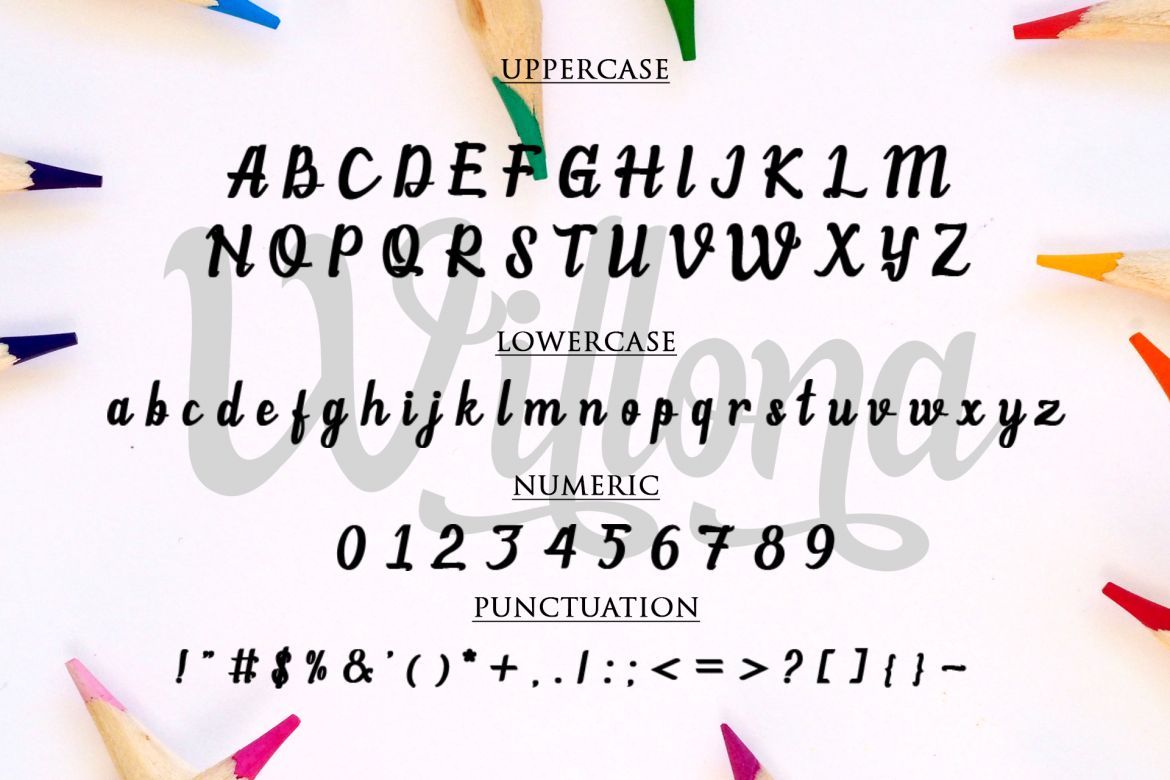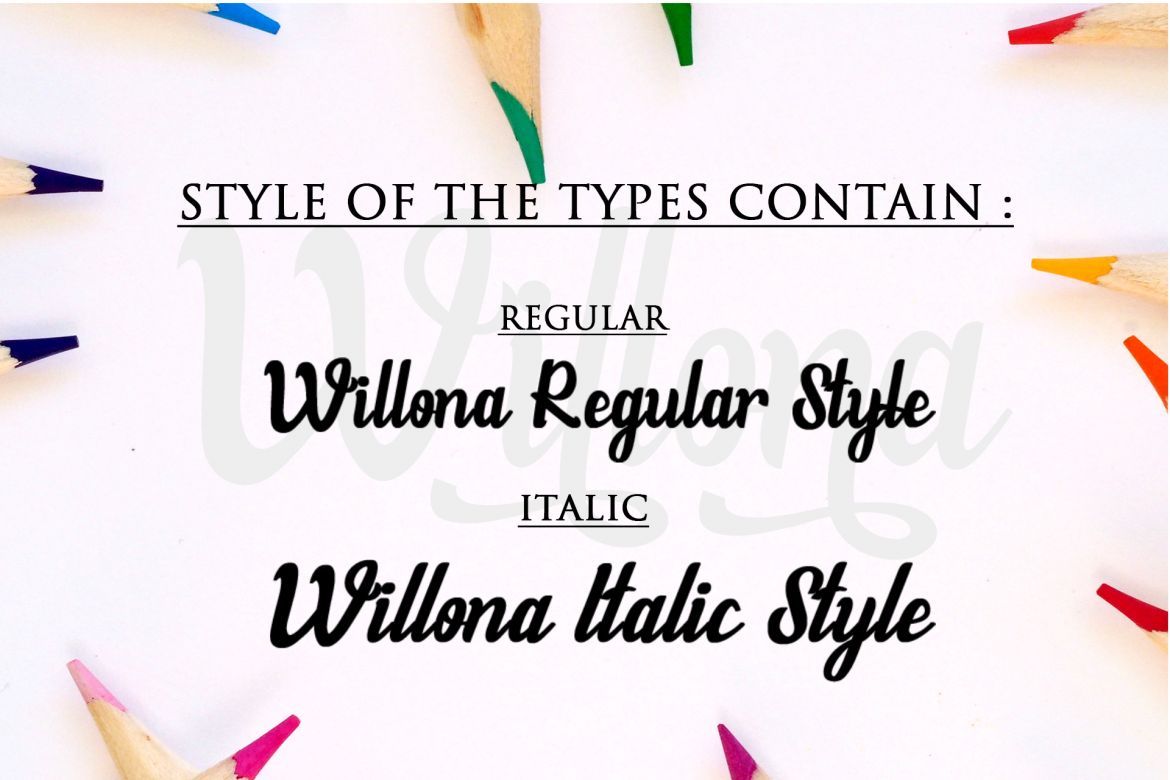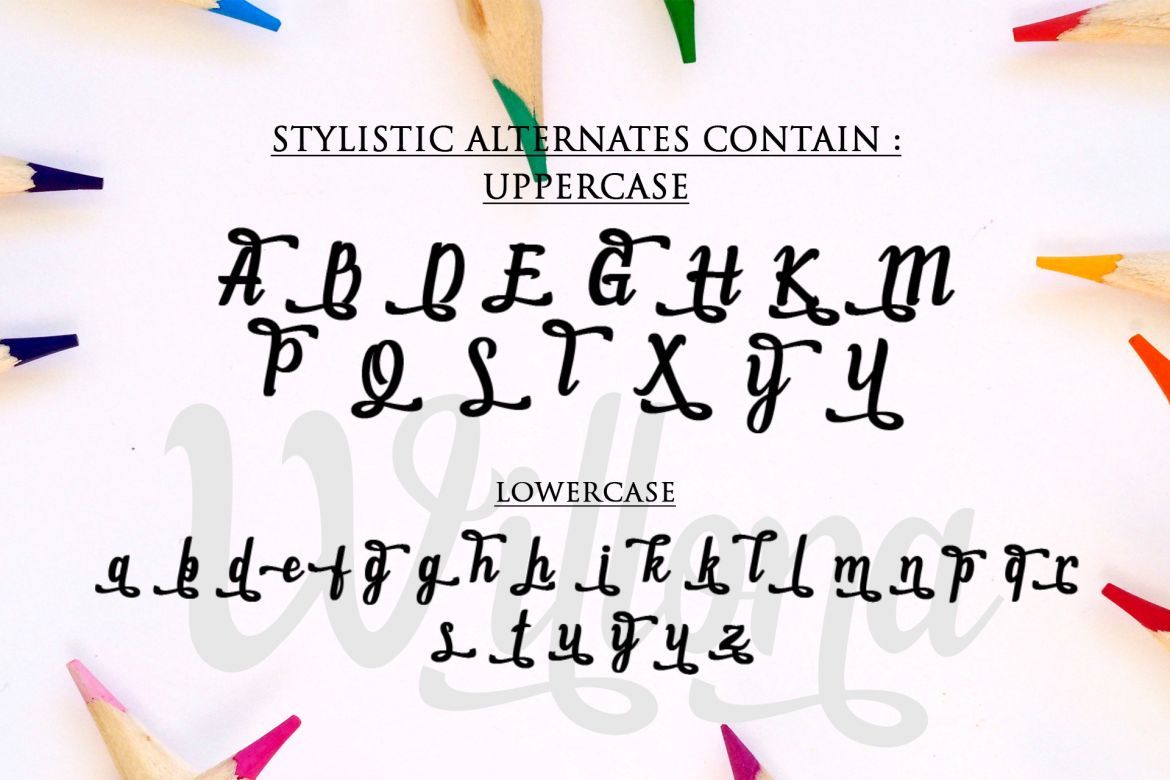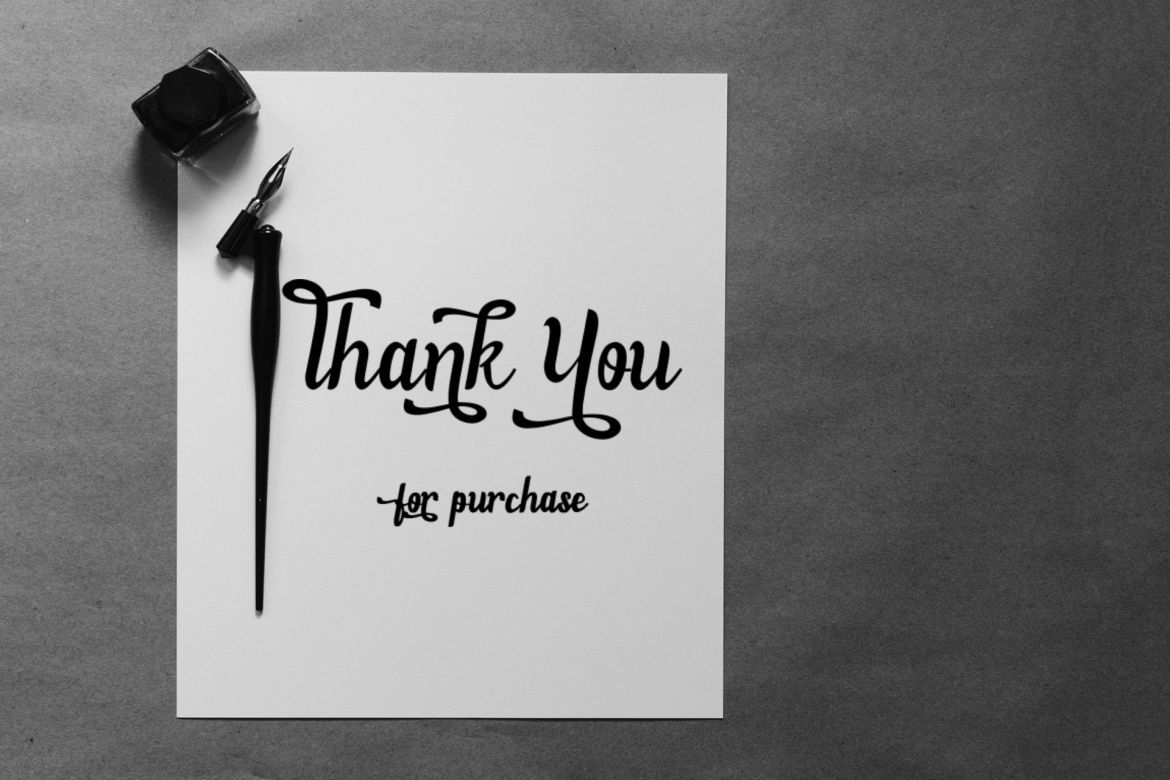
Willona Font
Willona is new fresh handmade calligraphy font. Very suitable for greeting cards, branding materials, business cards, quotes, posters, and more!
• Willona – contain of 2 style of types, regular and italic style
• each font has kind of style for your requirement